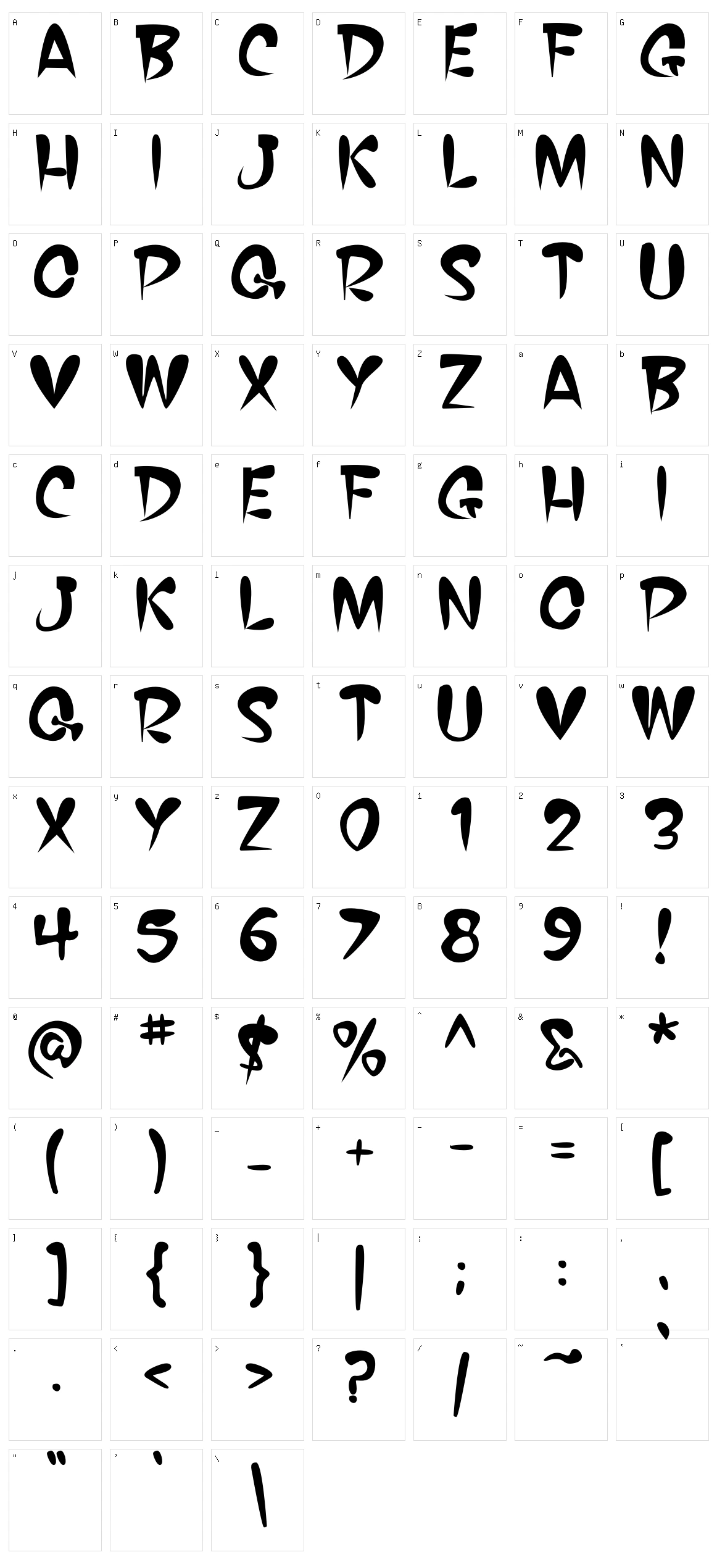
The free font Booz Boom is carefully designed by Doni Dorra, showcasing a thoughtful balance of creativity and usability and falls under the Cartoon font style. When you download the ZIP file, it contains only 25.18 KB of font files, making it lightweight and quick to download. Please review the license details below to understand permitted usage and distribution rights. If license information is not available, we recommend using this font for personal projects only or contacting the author directly for commercial usage permissions.